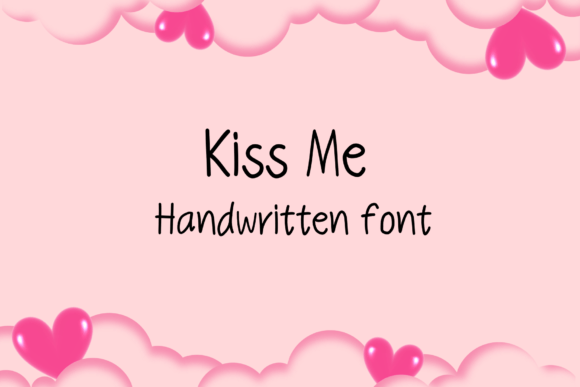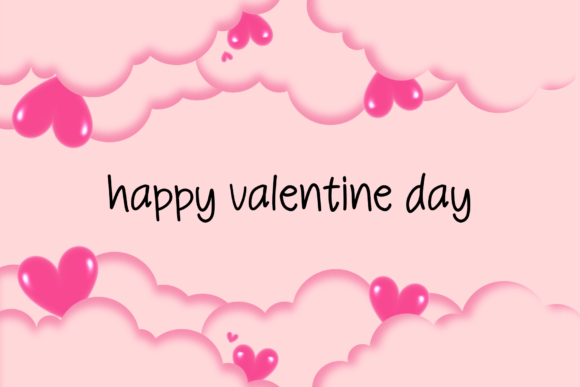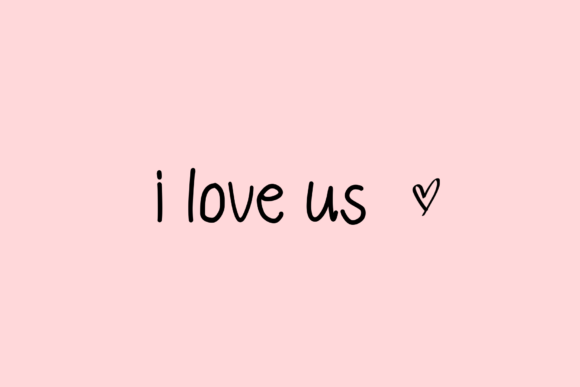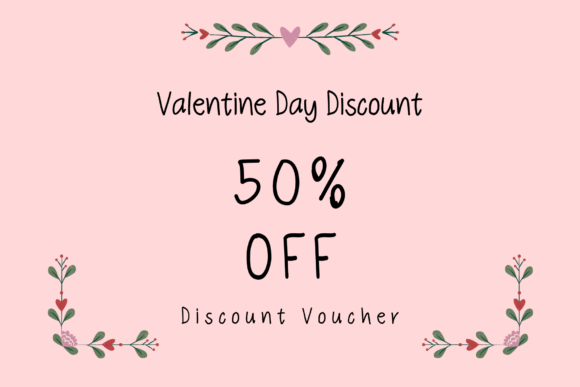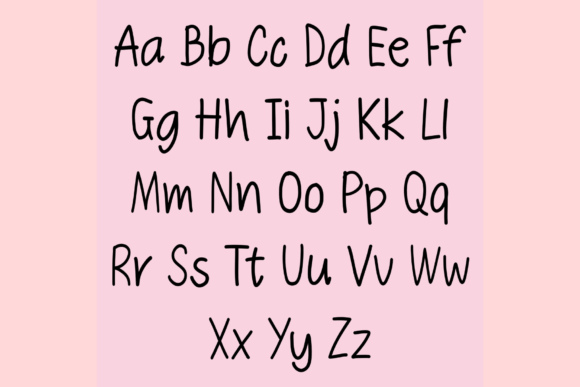
Adding a Sweet Touch to Your Designs
Have you ever stared at a blank canvas, searching for the perfect font to bring your creative vision to life? The blank page can be intimidating, but the right font can make all the difference. For me, it was a late-night brainstorming session with a friend that sparked the idea for a playful project. We were trying to come up with the perfect design for a friend’s wedding invitation, and I knew exactly what we needed – a font that exuded warmth and friendliness.
Enter the Kiss Me Font, a charming handwritten display font that’s perfect for adding a touch of whimsy to your designs. Whether you’re a seasoned designer or just starting out, this font is a valuable addition to your toolkit. Its versatility makes it ideal for a wide range of projects, from digital designs and presentations to crafts and wedding invitations.
Kiss Me Font Key Features
- Unique Characteristics: This font features a unique, hand-drawn style with a mix of elegant and playful elements, making it perfect for creative projects, such as invitations, posters, and branding materials.
Kiss Me Font Review
Overall, I was impressed with the Kiss Me Font’s unique blend of elegance and playfulness. ✨ The curves and lines are expertly crafted to create a sense of whimsy, making it perfect for designs that need a touch of romance or whimsy.
One of the standout features of the Kiss Me Font is its versatility. ✨ It works well for both digital and print designs, from social media graphics to wedding invitations. The font is also highly customizable, allowing designers to tweak the settings to fit their specific needs.
- Unique blend of elegance and playfulness
- Expertly crafted curves and lines
- Works well for both digital and print designs
- May not be suitable for designs that require a more serious tone
- Some users may find the font too ornate or busy
- Not ideal for large blocks of text
- Can be challenging to read at very small font sizes
Overall, the Kiss Me Font is a great addition to any designer’s toolkit. While it may have some limitations, its unique charm and versatility make it a valuable resource for designers looking to add a touch of whimsy to their designs.
Use the Kiss Me Font to create eye-catching headings and titles.
Combine the Kiss Me Font with other fonts to create a unique and visually appealing design.
Experiment with different font sizes and colors to add emphasis to your text.
The Kiss Me Font is perfect for:
Valentine’s Day and love-themed designs
Romantic and whimsical branding
Alternatives to Kiss Me Font
Great Vibes is a handwritten script font that is perfect for adding a touch of elegance and sophistication to your designs. It’s great for use in invitations, wedding stationery, and other creative projects where a personal touch is needed. Great Vibes has a more refined and polished look compared to Kiss Me Font, which makes it ideal for more formal designs.
Alex Brush is a beautiful script font that is perfect for adding a touch of whimsy and romance to your designs. It’s great for use in wedding invitations, birthday cards, and other creative projects where a personal touch is needed. Alex Brush has a more delicate and intricate look compared to Kiss Me Font, which makes it ideal for more feminine designs.
Crimson Text is a serif font that is perfect for use in body text and headings where a classic look is needed. It’s great for use in brochures, flyers, and other marketing materials where a professional look is required. Crimson Text has a more formal and traditional look compared to Kiss Me Font, which makes it ideal for more formal designs.